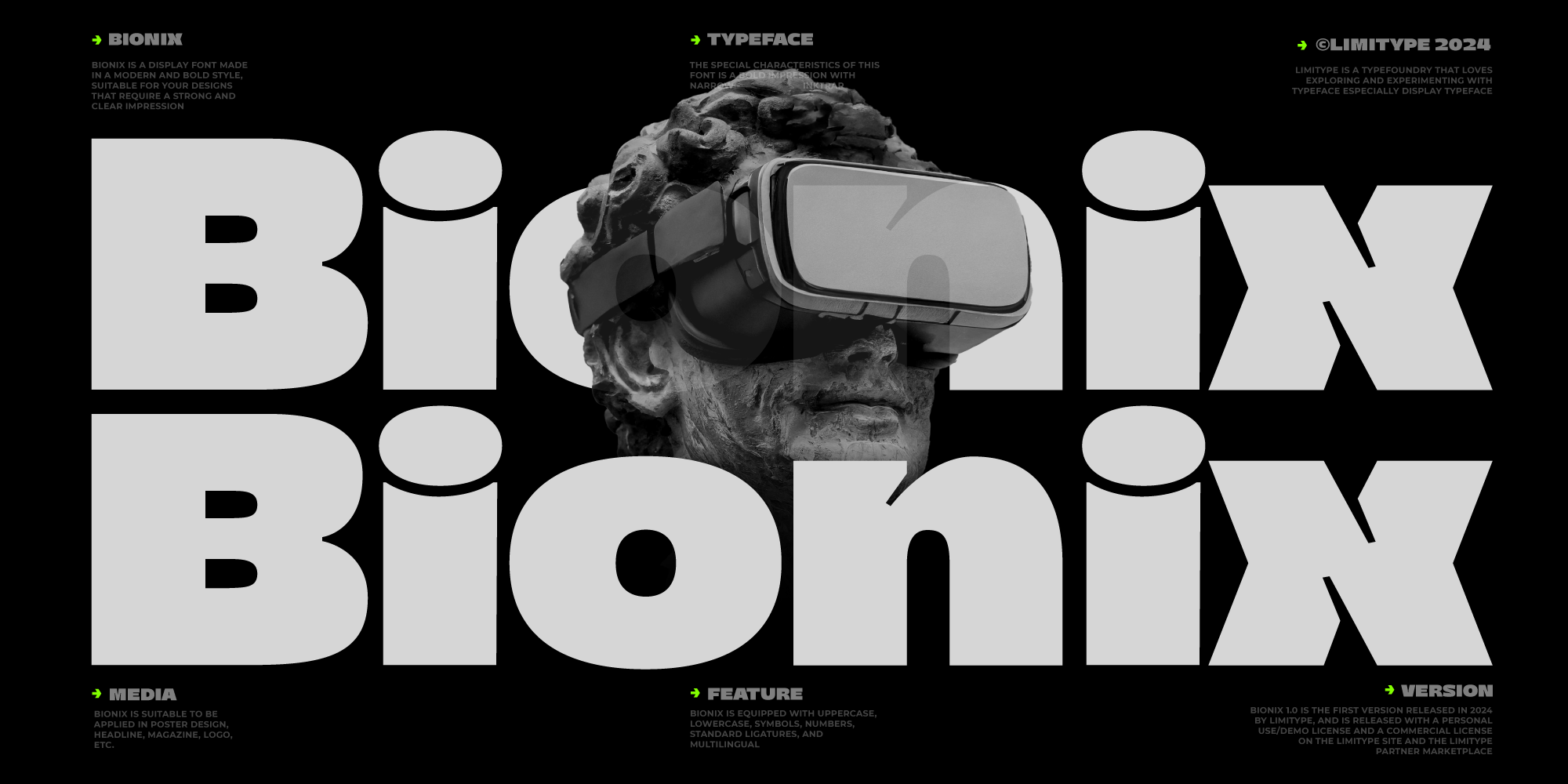
Bionix Font is perfect for biotechnology company branding, medical research publications, futuristic sci-fi interfaces, genetic engineering logos, pharmaceutical packaging, advanced laboratory signage, biomedical conference materials, and cutting-edge scientific campaigns.
This font is exciting because it embodies the revolutionary power of biotechnology with scientific precision and futuristic innovation. Bionix Font features sleek, molecular-inspired letterforms with technological sophistication that capture the essence of genetic advancement and biological engineering, making it ideal for projects that require scientific authority and cutting-edge appeal.
The Bionix Font family includes regular, light, bold, and tech variants, along with scientific alternates and molecular ligatures that enhance its biotechnology character. Each weight maintains the font's scientific aesthetic while providing different levels of technological expression for various biotech and medical design applications.
Whether you're developing innovative biotech brands, creating compelling scientific research materials, or designing futuristic medical campaigns, Bionix Font Free Download delivers exceptional innovation and scientific appeal. Its distinctive biotechnology style makes it an excellent choice for designers seeking to add genuine scientific credibility and technological sophistication to their projects. The font's versatility extends from laboratory equipment branding to medical conference presentations, ensuring consistent performance across all scientific applications. With its precisely engineered letterforms and molecular proportions, this typeface provides professional results that inspire scientific confidence and establish authoritative brand presence with its unmistakable biotech character and revolutionary scientific innovation.